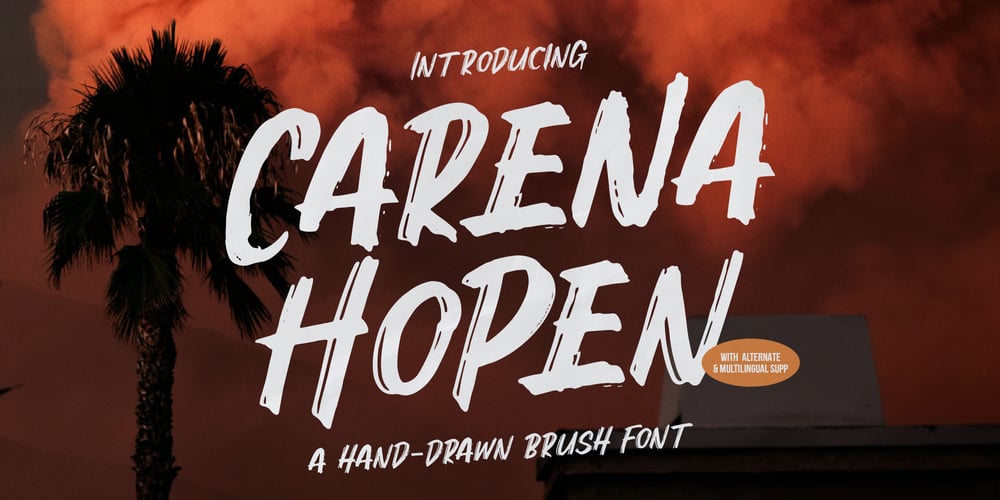
Carena Hopen Font Family was designed by published by Tini Fitriani. Carena Hopen contains 2 styles and family package options. Carena Hopen | Hand Drawn Brush Font, from Gracetypestudio, suitable for any projects such as: logos, branding projects, homeware designs, product packaging, mugs, quotes, posters, shopping bags, t-shirts, book covers, name card, invitation cards, greeting cards, label, photography, watermark, special events, and all your other lovely projects that need a Hand Drawn Brush Font taste.========================================================================What’s Included : Regular and Italic Web Font Standard glyphs Alternate and Ligature Works on PC & Mac Simple installations Accessible in the Adobe Illustrator, Adobe Photoshop, Adobe InDesign, even work on Microsoft Word and Other Software. PUA Encoded Characters – Fully accessible without additional design software. Fonts include multilingual support Hope you enjoy with our font!